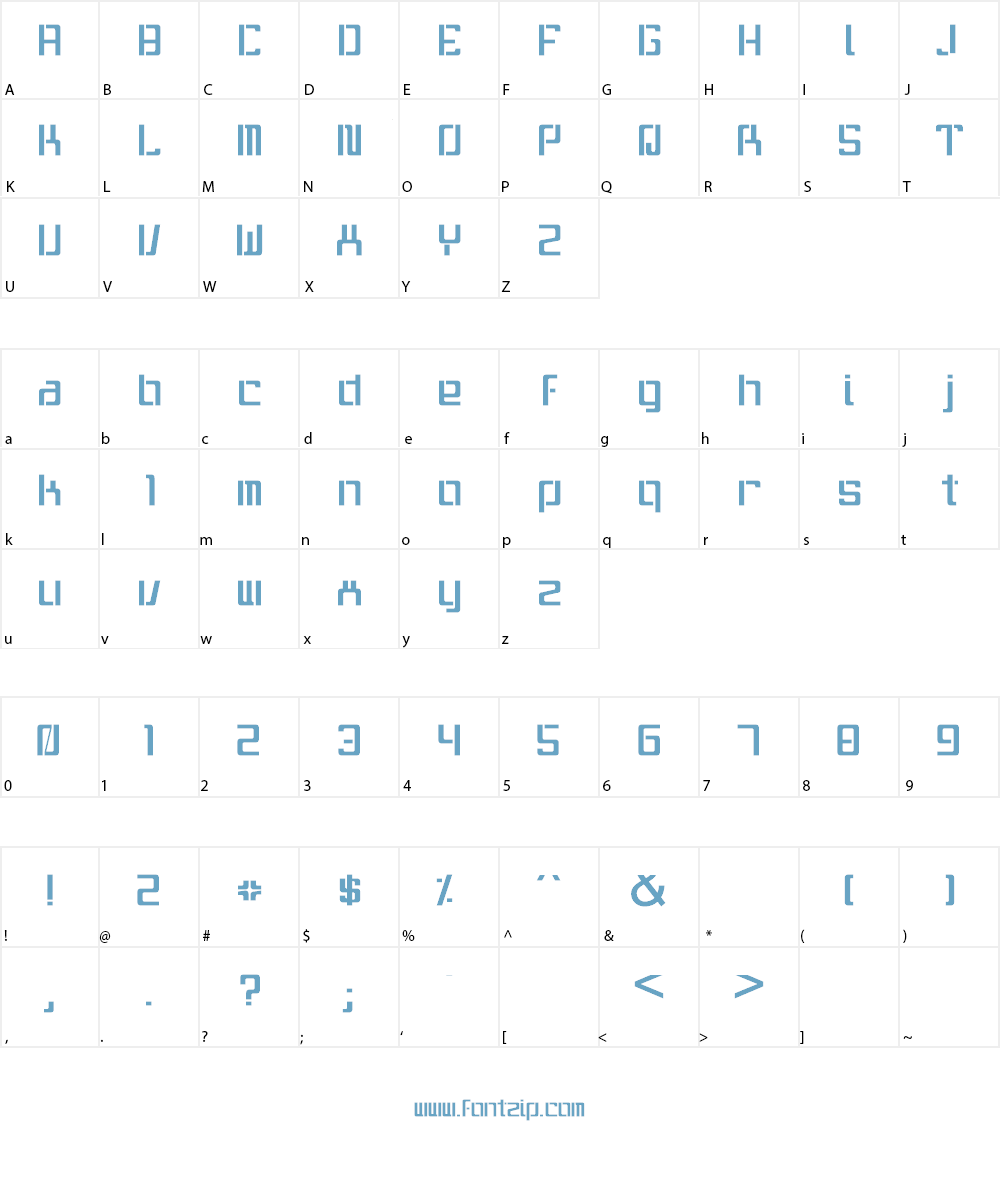
This one should be very solid, with no spacing problems ect. I like this one alot, though it seems that many people don't. I think the problem is it doesn't really look good as its name, other words look much better in it.